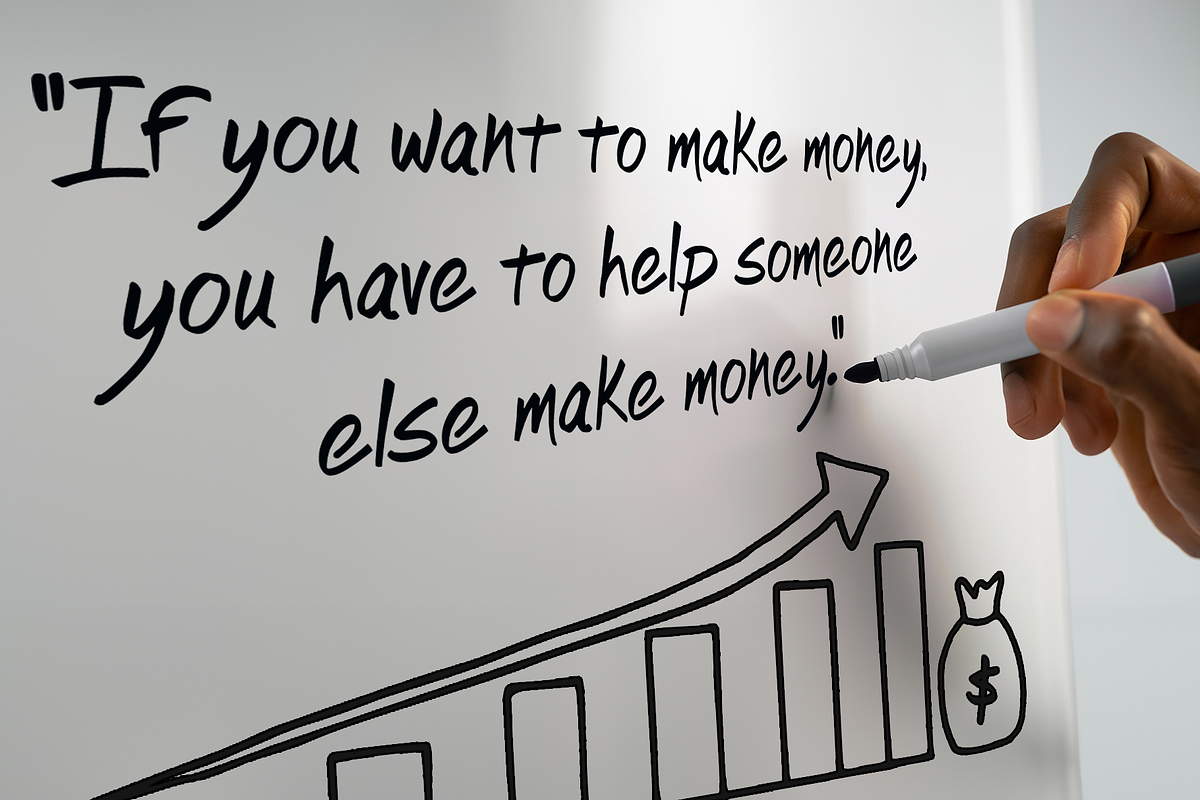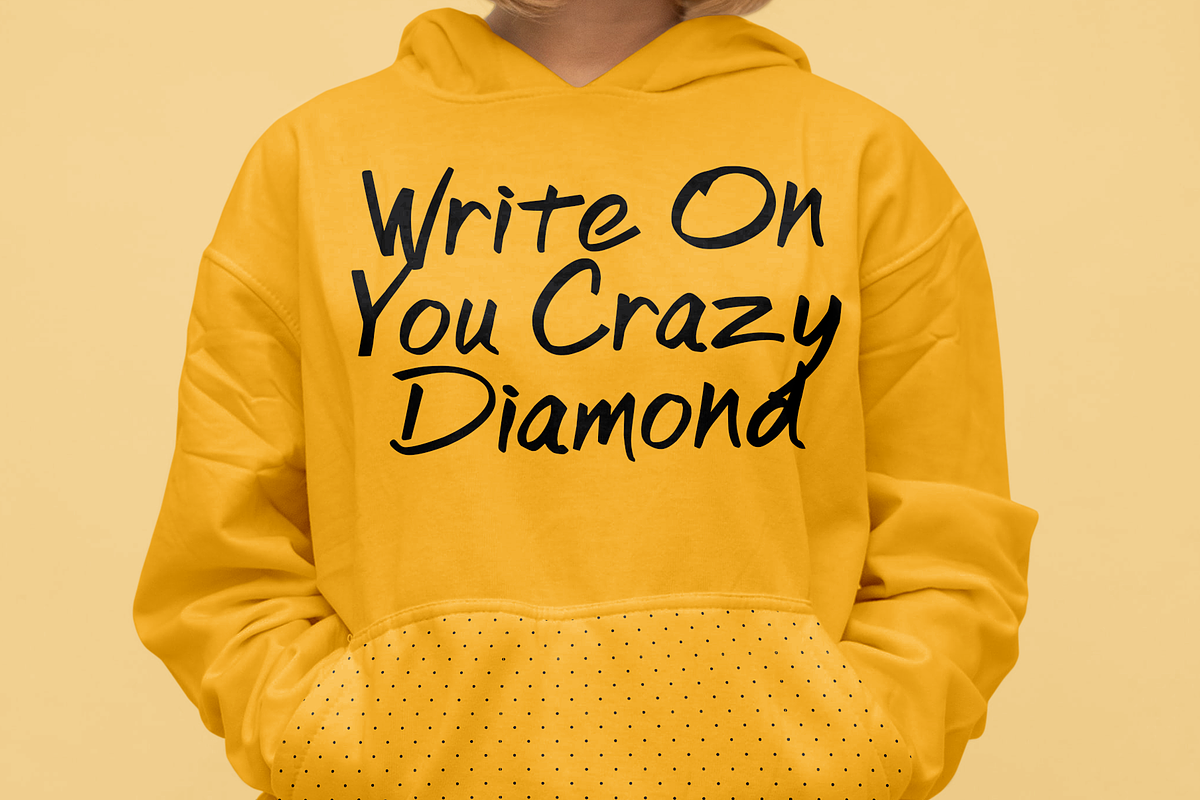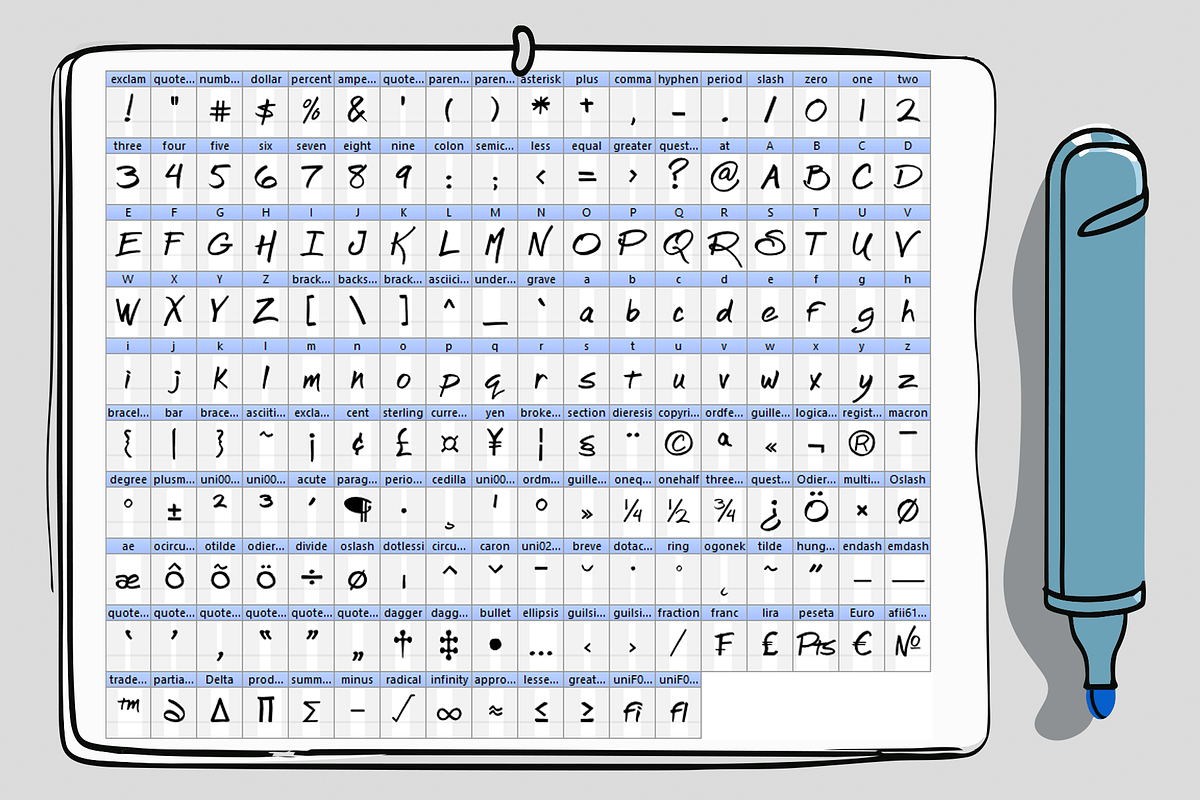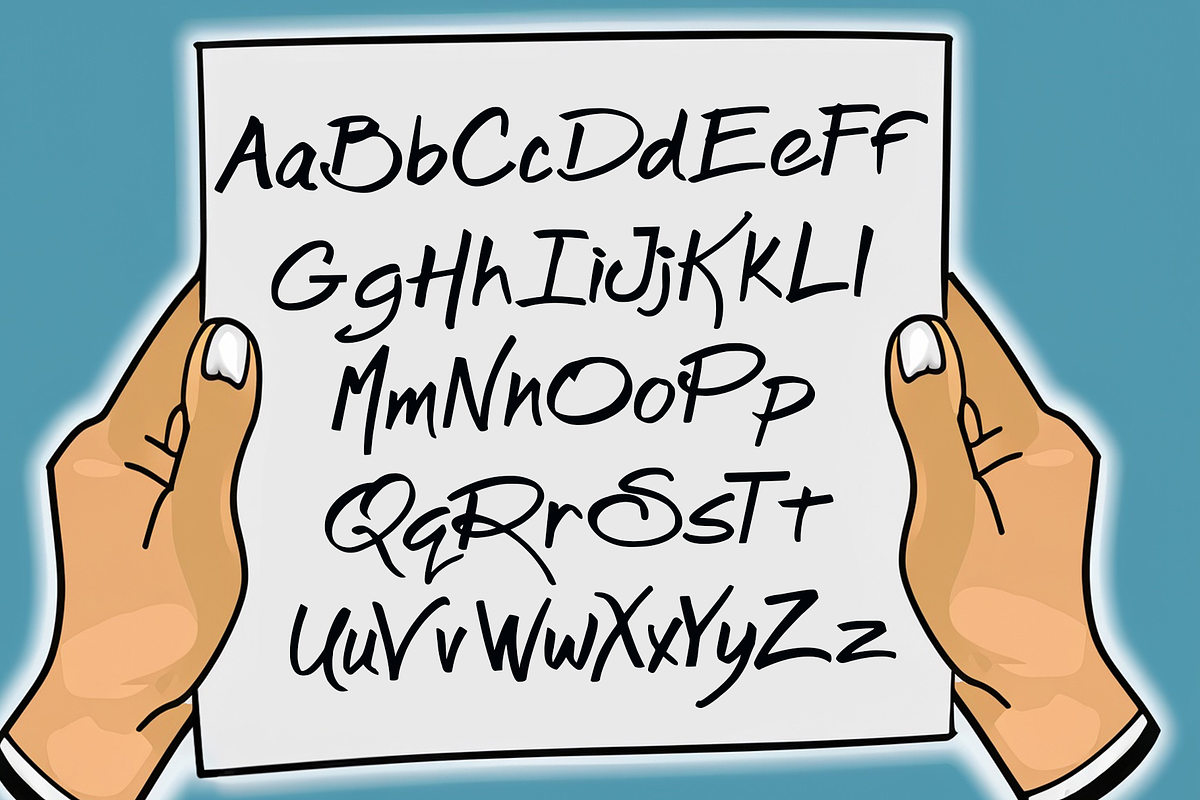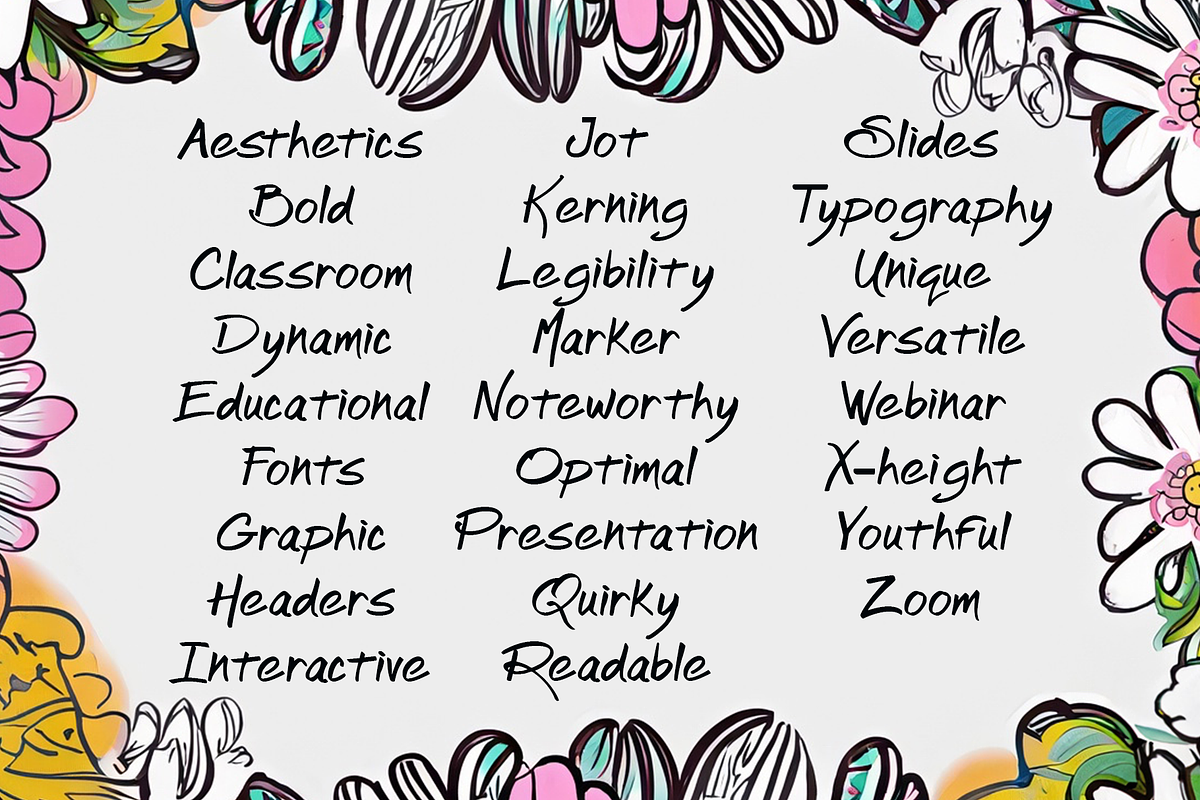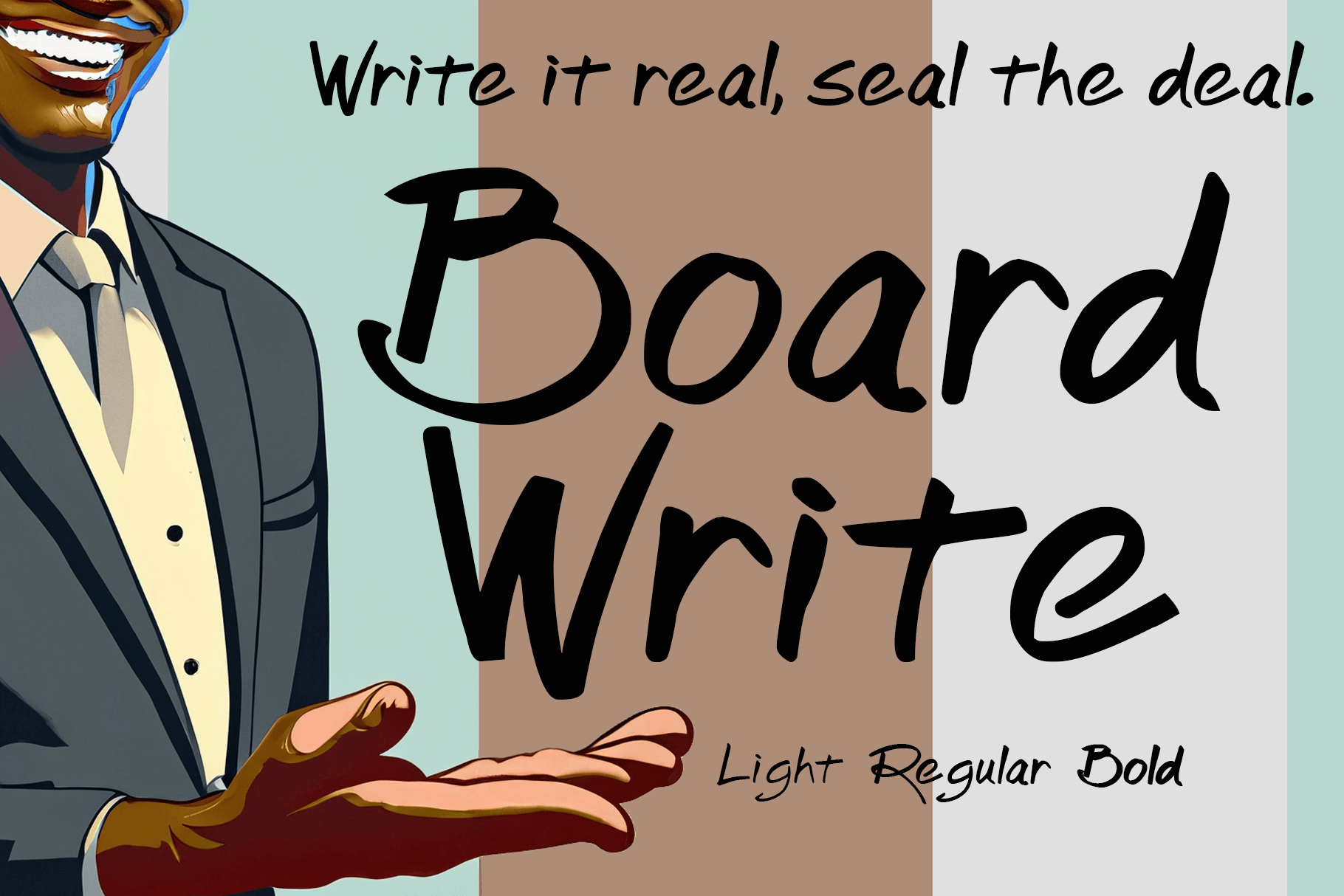
BoardWrite Font
BoardWrite: The Whiteboard Marker-Inspired Font
Transform your digital creations with BoardWrite, the font designed to bring the tactile feel of whiteboard marker writing to your computer screen. Crafted with an emphasis on readability and dynamic expression, this typeface is perfect for presentations, educational materials, and creative projects.
- Authentic Characters: Immerse your audience with the look and feel of a real whiteboard marker.
- Optimized Readability: Carefully designed to be highly legible at both large and small sizes.
- Incredible Versatility: Equally suitable for headers, sub-heads, and body text.
- Multi-Language Support: Features a wide range of characters, including special symbols and accents.
Suggested Use Cases:
- Educational Content: Bring lectures and tutorials to life.
- Business Presentations: Add character to your corporate slide decks.
- Webinars: Enhance visibility and viewer engagement.
- Digital Signage: Grab attention without sacrificing clarity.
- Social Media Posts: Make your text posts stand out in crowded feeds.
BoardWrite is more than just a font—it's an experience. Capture your audience's attention and keep it, whether in the classroom, the boardroom, or anywhere in between.
BoardWrite - Write it real, Seal the deal